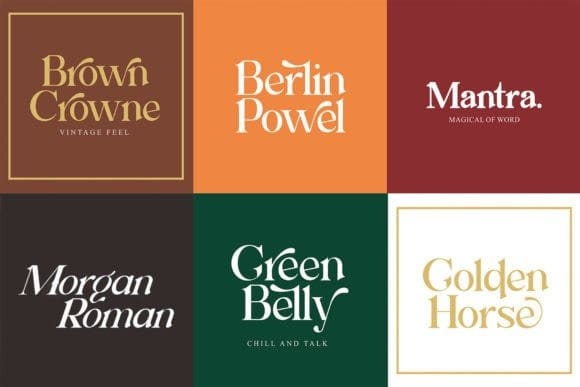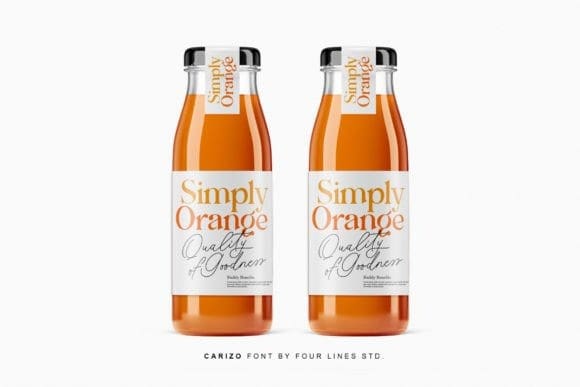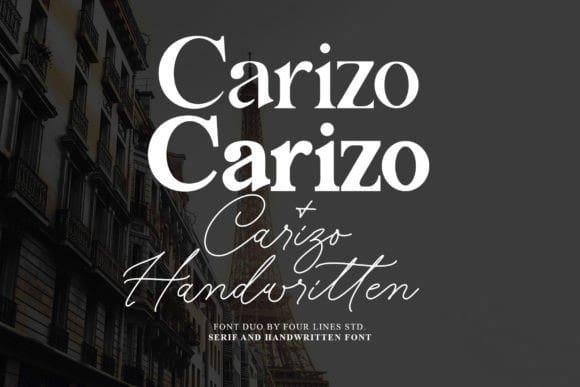
Carizo Font
Carizo Font consists of two stylish fonts (serif and script) designed to complement each other. It is perfect for branding, logos, invitations, quotes, and many more. Use Carizo to add that special touch to any design idea you can think of and it will seduce your audience with its impeccable style and form.